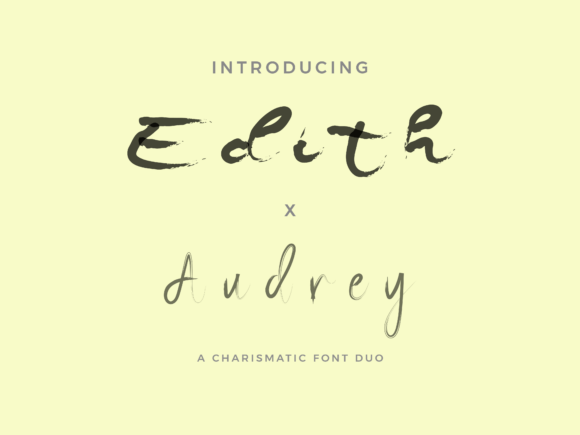
Introducing the Edith X Audrey Duo Font: Elevate Your Design with Elegant Cursive Handwriting
The world of typography has witnessed a significant transformation over the years, with designers continually seeking innovative ways to make their text stand out. In this pursuit of creativity, the Edith X Audrey Duo Font has emerged as a game-changer, offering a captivating combination of elegance and sophistication. This delightful duo of fonts is charmingly crafted in a cursive handwriting style, breathing life into every letter and creating an effortless flow of beauty that is sure to leave a lasting impression.
The Essence of Edith and Audrey
At the heart of the Edith X Audrey Duo Font lies a deep understanding of the importance of typography in design. These fonts are not just a collection of letters and symbols; they are an artistic expression of elegance and refinement. The essence of Edith and Audrey can be distilled into two key elements: unpretentious sophistication and graceful fluidity. This unique blend allows designers to add a personal touch to their work, making it more relatable and engaging.
Unleash Your Creativity with Versatility
One of the standout features of the Edith X Audrey Duo Font is its incredible versatility. Whether you’re working on a branding project, designing wedding invitations, or embarking on any other creative endeavor, these fonts can adapt seamlessly to your needs. Their ability to convey a sense of warmth and personality makes them an excellent choice for designers looking to infuse their work with a human touch.
The Art of Handwritten Typography
The Edith X Audrey Duo Font embodies the charm of handwritten typography, capturing the nuances and imperfections that make handwriting so unique. This font duo doesn’t just replicate handwriting; it brings it to life with a fluidity and natural rhythm that is hard to achieve with traditional typography. The result is a text that feels personal, approachable, and engaging.
Minimalistic Elegance Redefined
In an era where bold and elaborate designs often take center stage, the Edith X Audrey Duo Font offers a refreshing alternative. This adorable font duo encapsulates the allure of minimalistic elegance, proving that sometimes, less is more. By stripping away unnecessary embellishments, Edith and Audrey reveal the beauty in simplicity, allowing the content to take center stage while still providing an artistic edge.
Applications of the Edith X Audrey Duo Font
The possibilities are endless when it comes to using the Edith X Audrey Duo Font. Here are a few examples of how these versatile fonts can elevate your design:
- Branding: Use Edith and Audrey to create a unique and memorable brand identity that stands out from the crowd.
- Wedding Invitations: Add a touch of elegance and romance to your wedding invitations, making them truly unforgettable.
- Creative Projects: From art installations to social media graphics, Edith and Audrey can bring a level of sophistication and charm to any creative project.
Why Choose Edith and Audrey?
In a market flooded with fonts and typography options, what sets the Edith X Audrey Duo Font apart? Here are a few compelling reasons to consider:
- Unique and Memorable: These fonts offer a distinctive style that can make your text more memorable and engaging.
- Elegant and Sophisticated: Edith and Audrey bring a level of elegance and sophistication to your design, making it more refined and polished.
- Versatile: Whether you’re working on digital or print projects, these fonts can adapt to various design needs.
The Edith X Audrey Duo Font is more than just a collection of letters; it’s a design statement. With its elegant cursive handwriting style, unpretentious sophistication, and graceful fluidity, this font duo has the power to transform your design into something truly special. Whether you’re a seasoned designer or just starting out, Edith and Audrey offer a world of creative possibilities. Embrace the allure of minimalistic elegance and let this adorable font duo breathe life into your text, making it unforgettable and visually stunning.